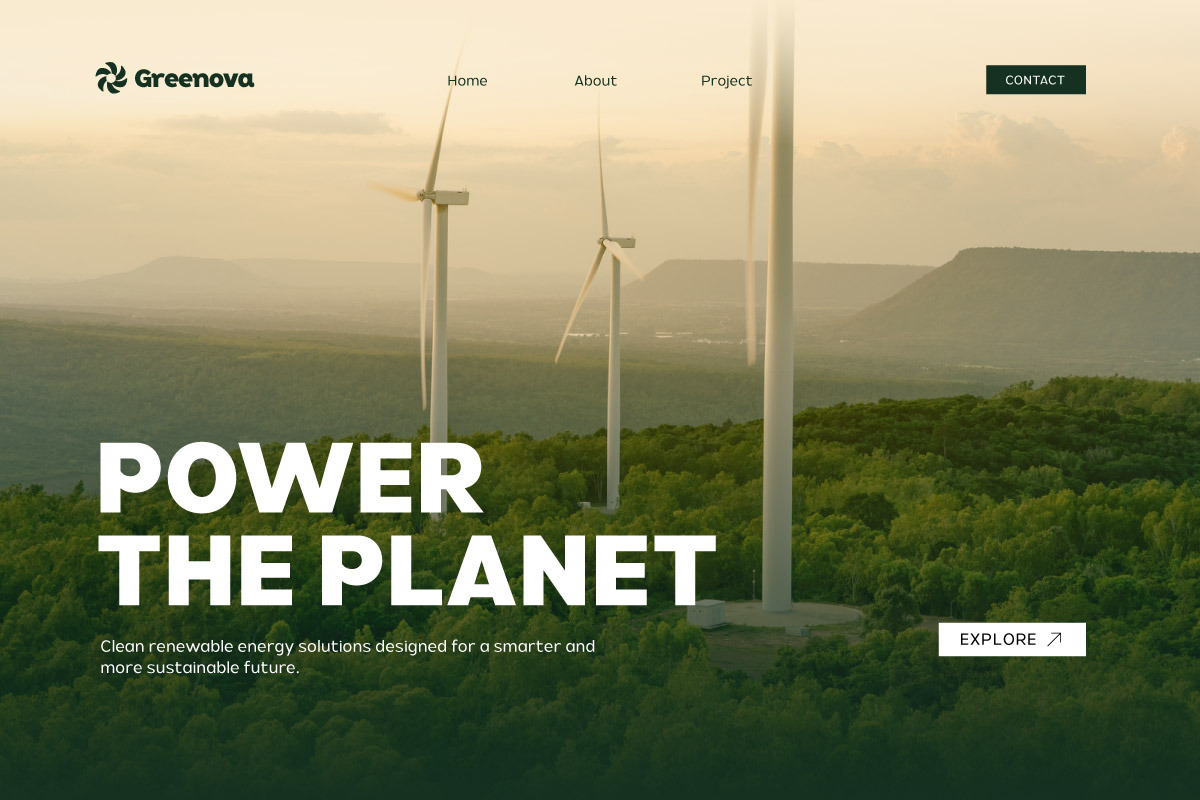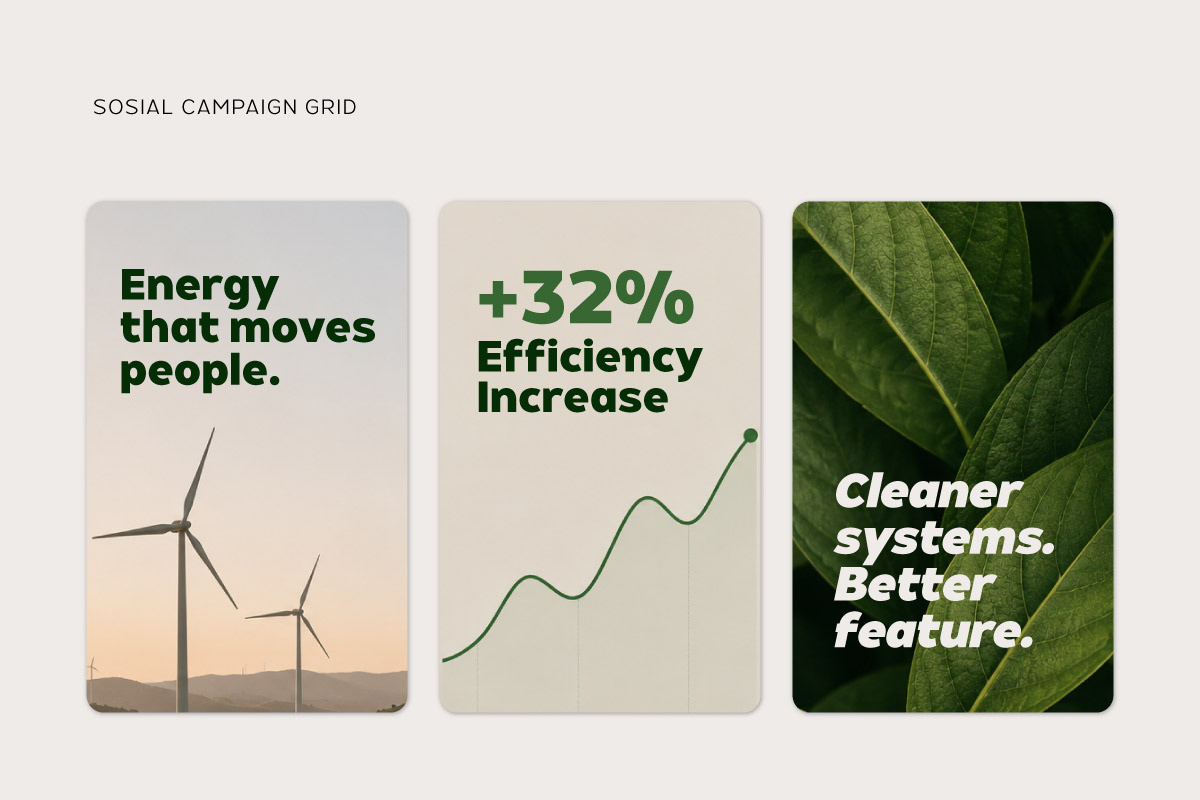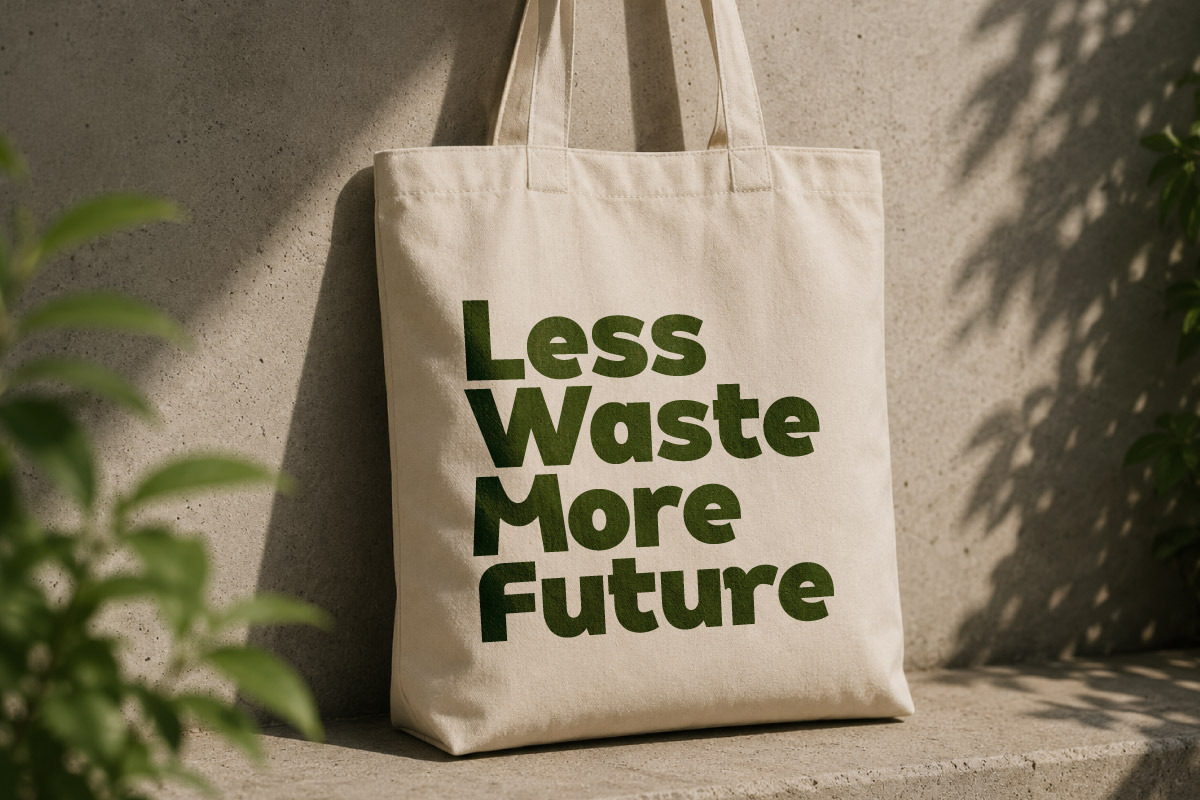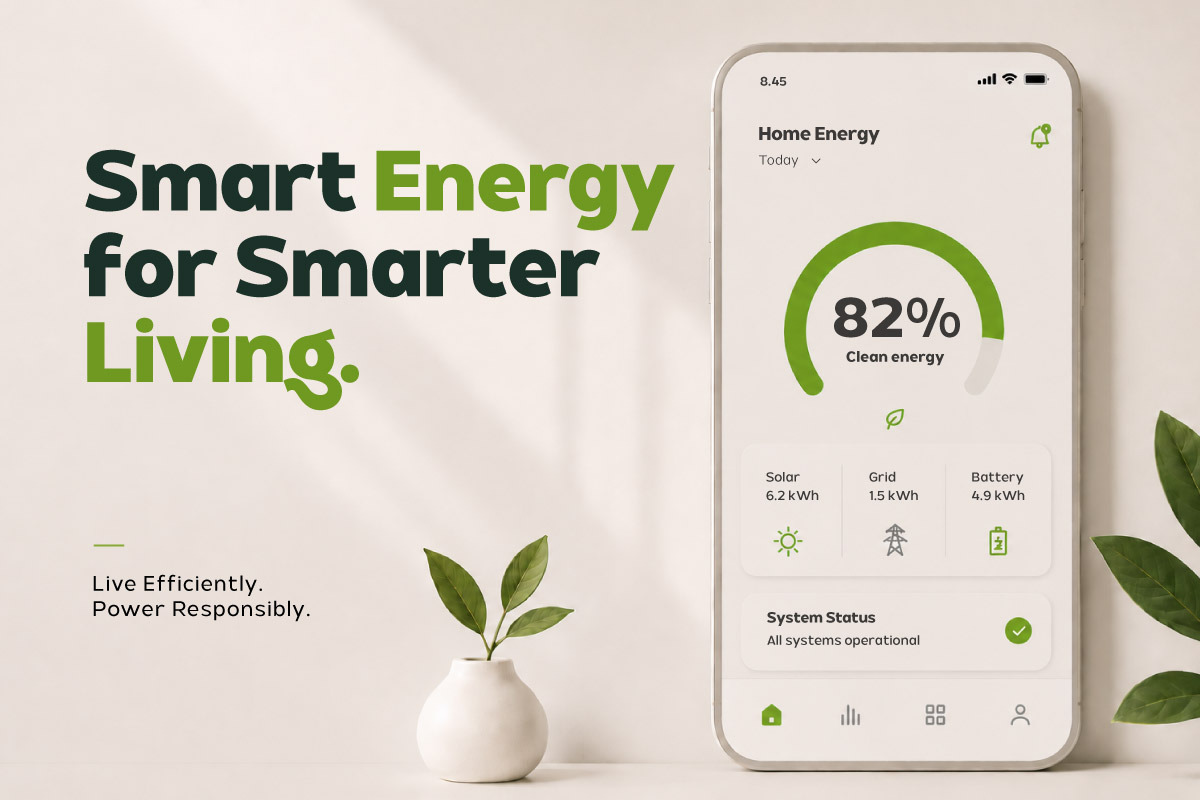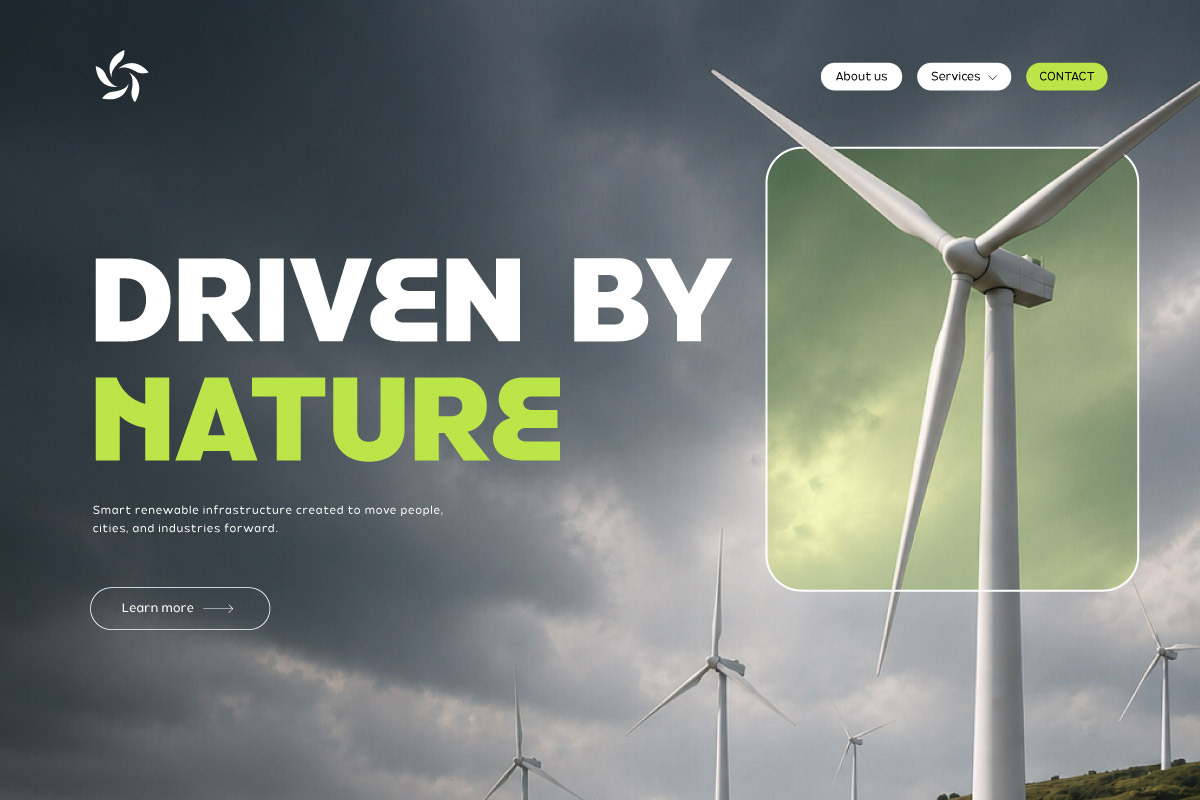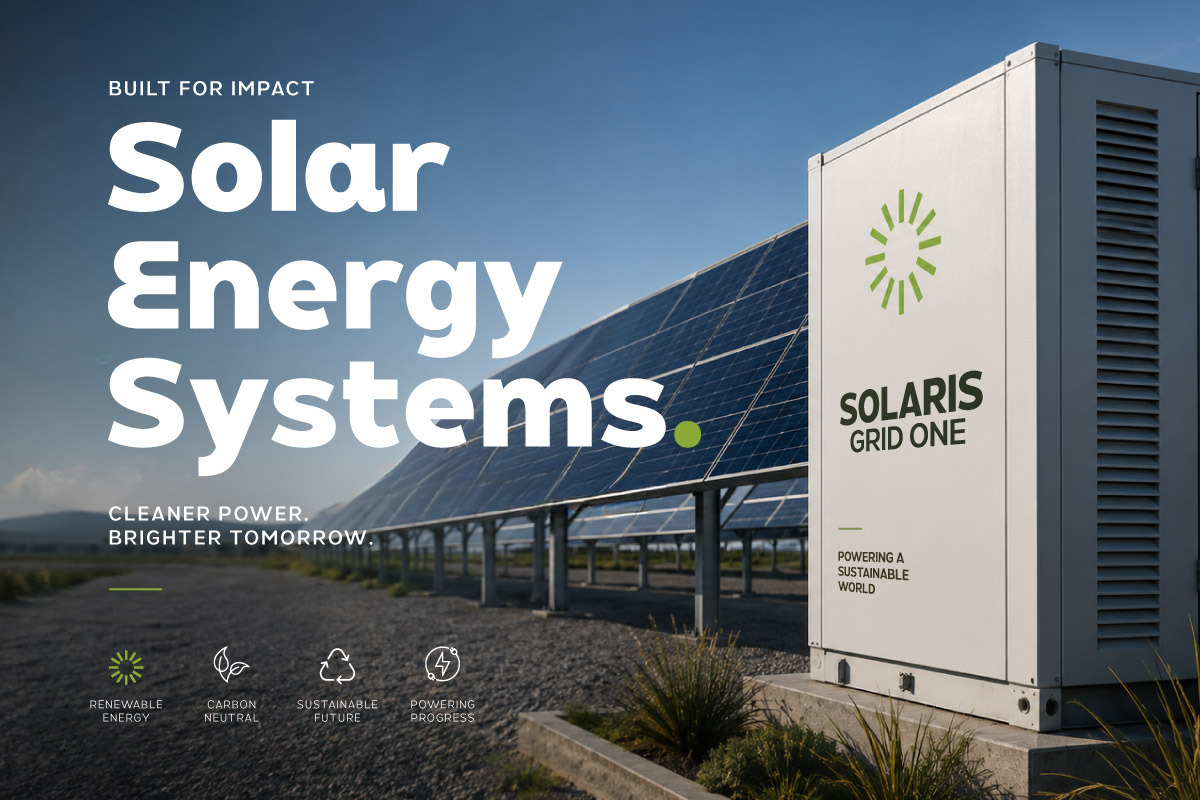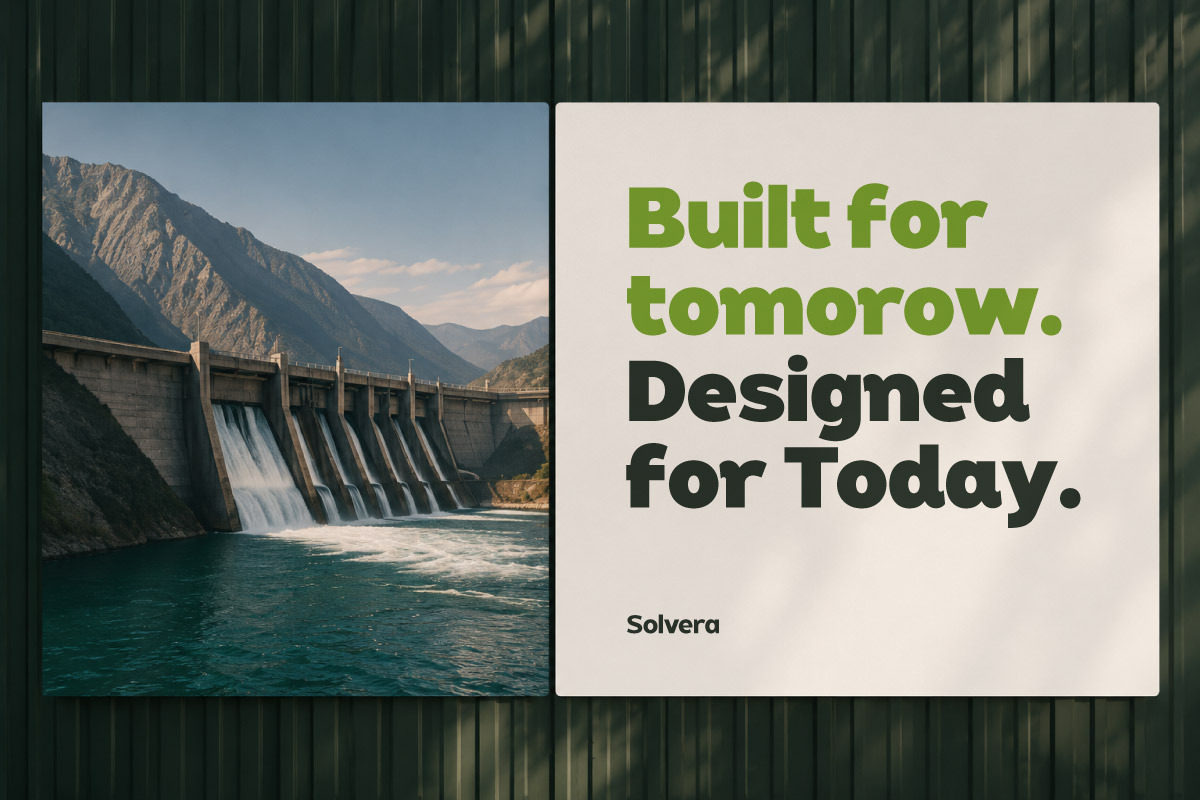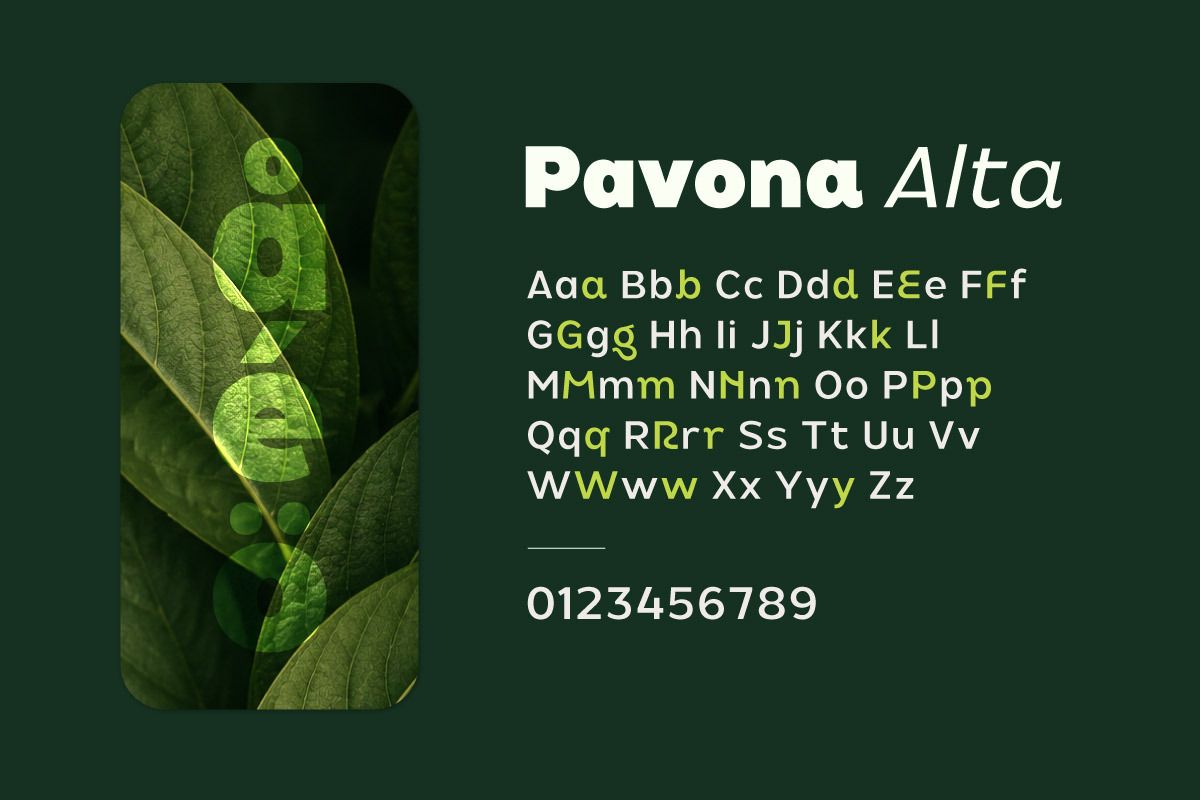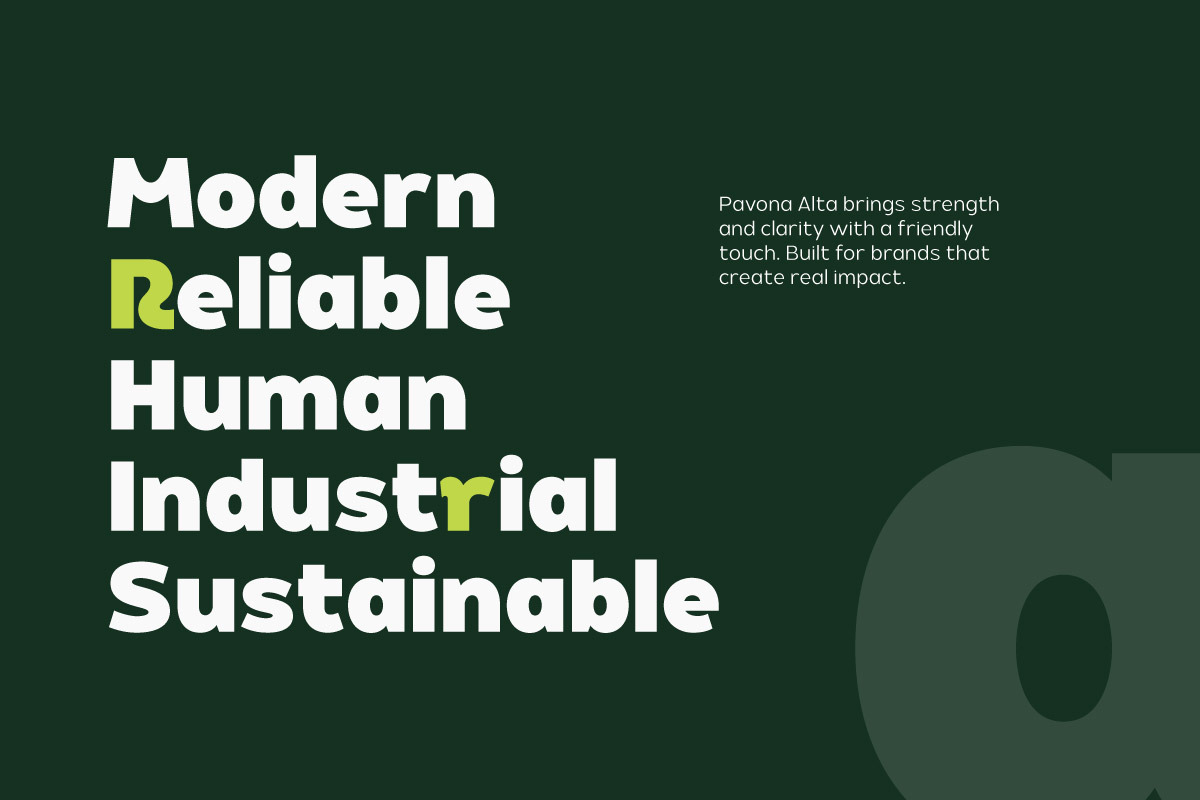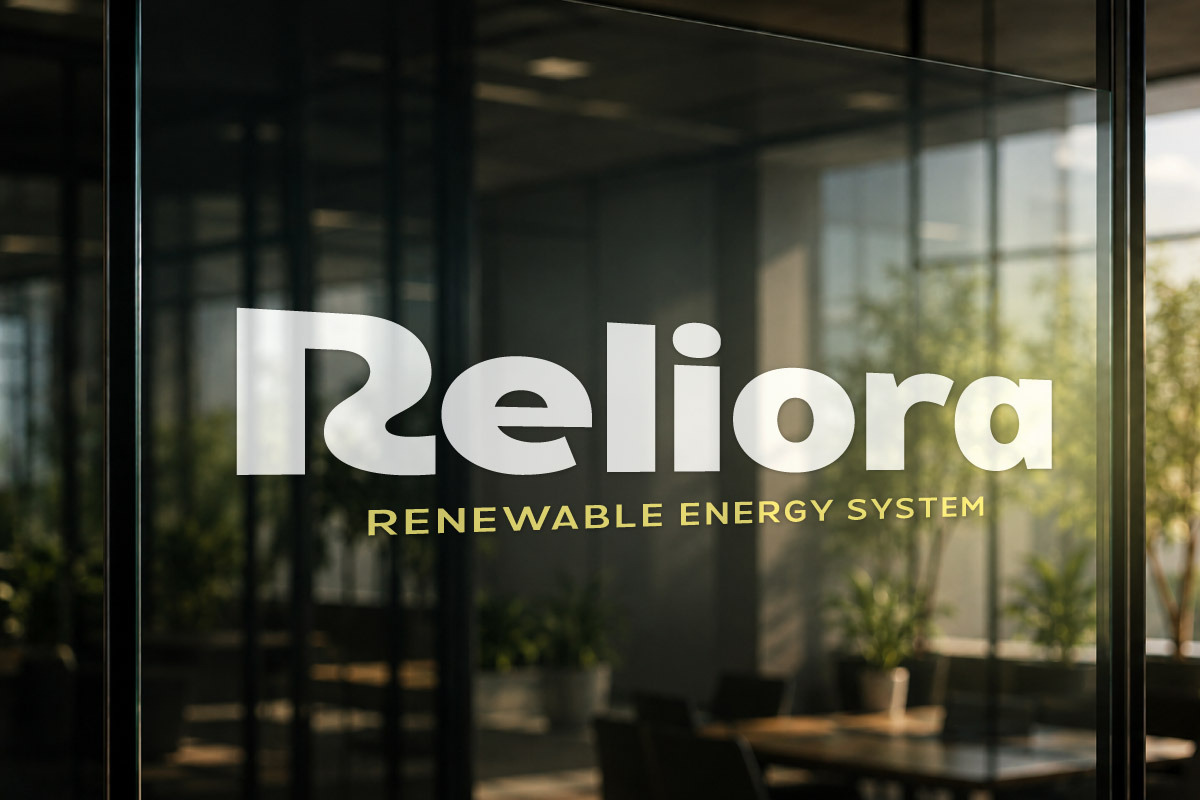
Pavona Alta - Pure Renewable Sans
Pavona Alta - Pure Renewable Sans is a modern sans serif typeface designed to create a clean, professional, and future-forward visual identity. Featuring strong geometric letterforms with elegant minimal details, this font delivers a trustworthy and innovative appearance - perfect for brands focused on renewable energy, sustainability, and green technology. Its balanced structure ensures excellent readability while maintaining a premium modern aesthetic across digital and print applications.
This typeface is ideal for renewable energy branding, eco-tech startups, ESG campaigns, sustainable business websites, solar power projects, and modern corporate presentations. The visual character communicates innovation, environmental awareness, and long-term sustainability in a sleek and contemporary way.
Featuring 18 font styles, 380+ glyphs, multilingual support, and a versatile sans serif system, Pavona Alta gives designers the flexibility to build strong and cohesive brand identities. Its clean modern aesthetic makes it an excellent choice for green industry projects and future-focused design systems.